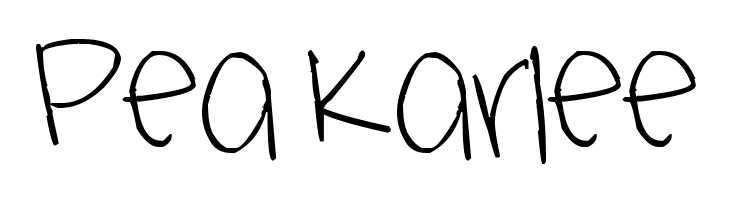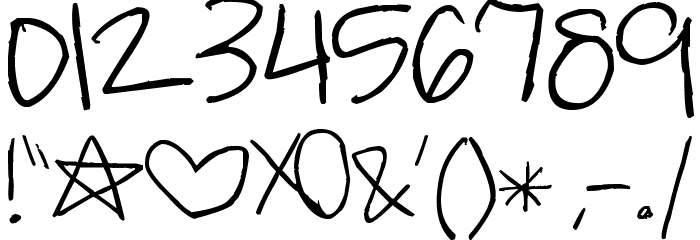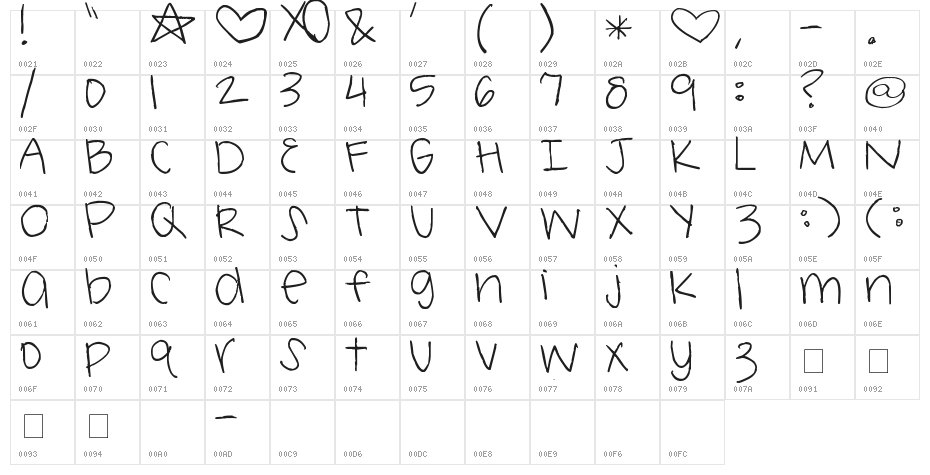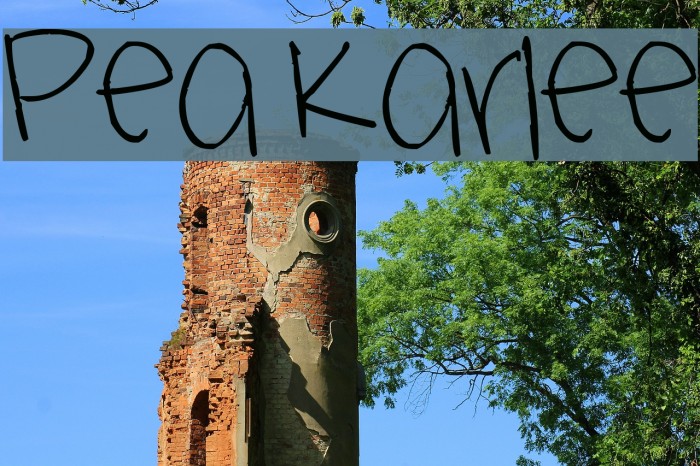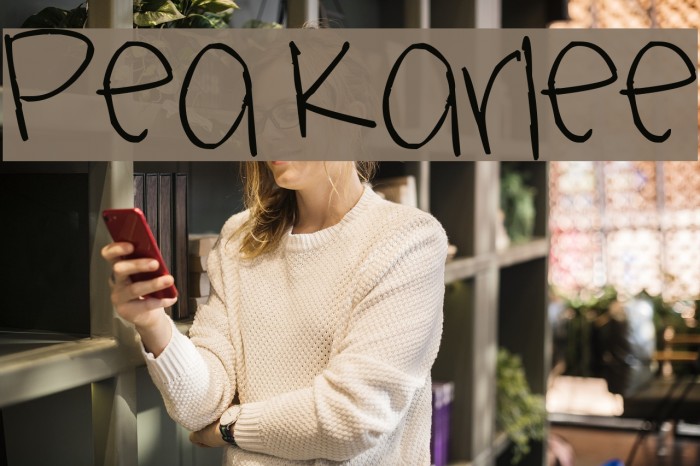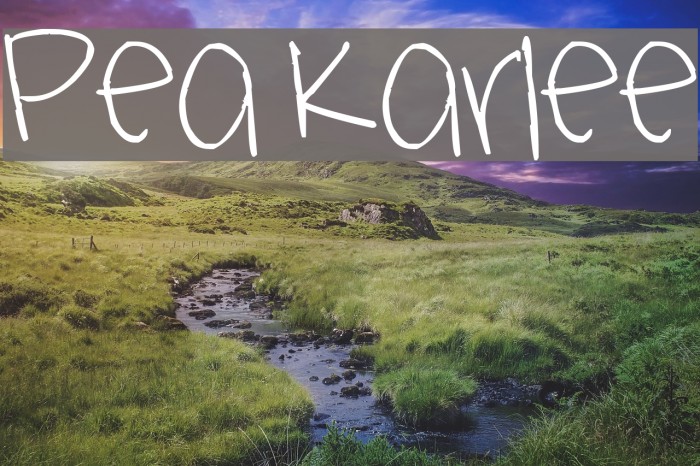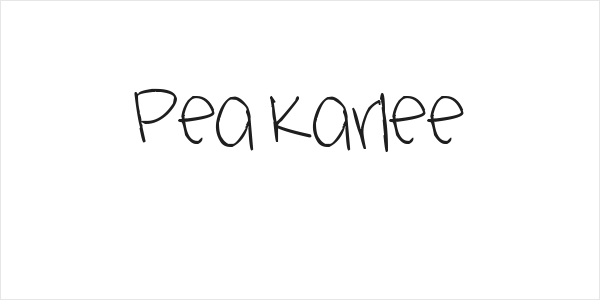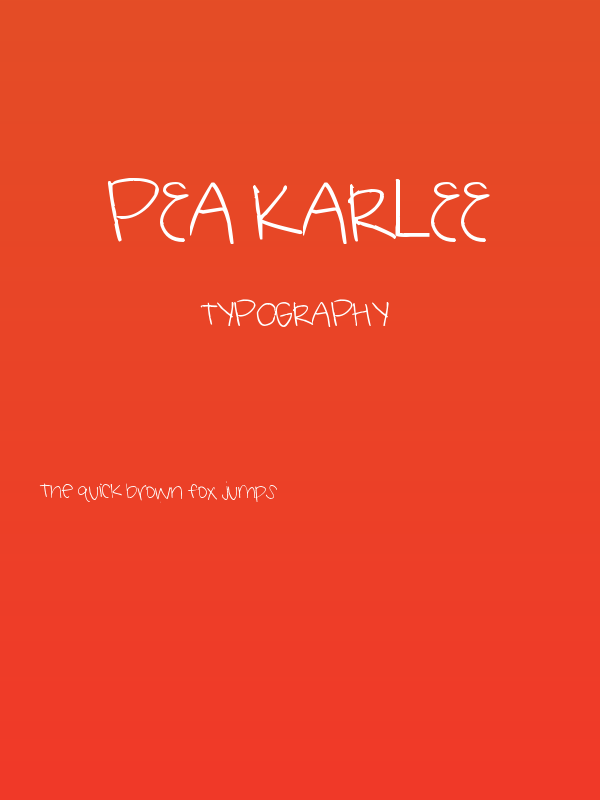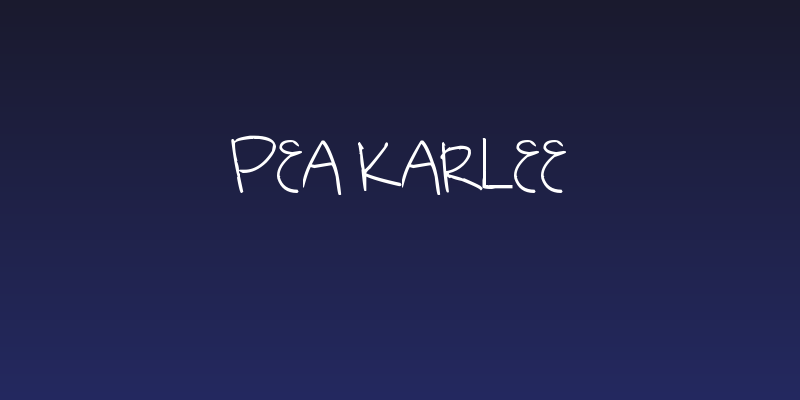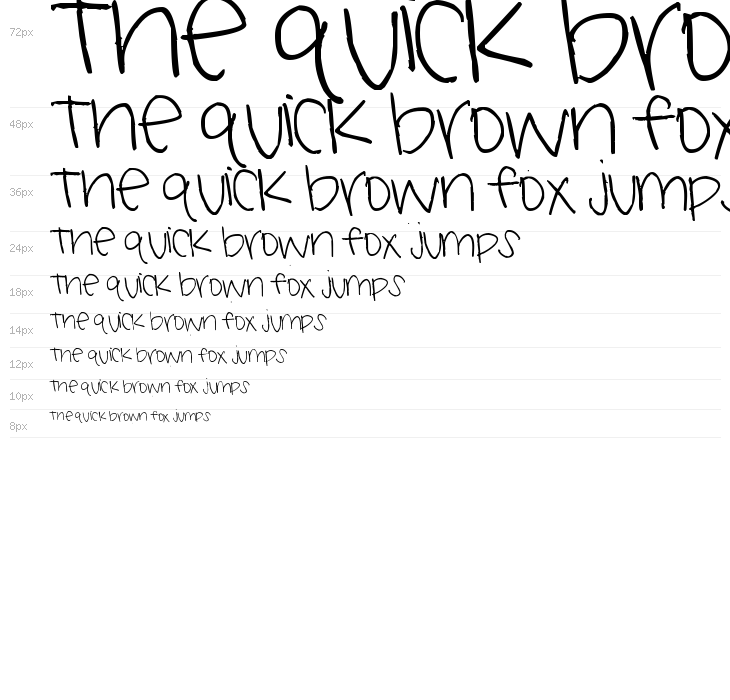
Pea Karlee Font
Pea Karlee Description
This font exudes a playful and casual handwritten style, characterized by its irregular, slightly slanted letterforms that mimic natural handwriting. The strokes are uneven, adding a personal and informal touch. The uppercase and lowercase letters maintain a consistent style, with rounded edges and a whimsical flair. The numerals and special characters follow the same playful aesthetic, making the font suitable for creative and informal applications. Its overall appearance is friendly and approachable, ideal for projects that require a personal touch.
Overall StyleCasual, Playful
Use CaseLogos, Greeting cards, Informal text
Proposed ProjectsIdeal for greeting cards, personal notes, children's books, and informal branding.